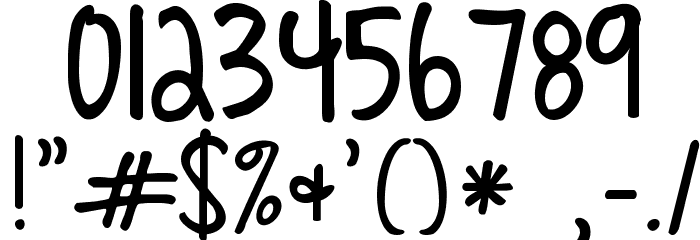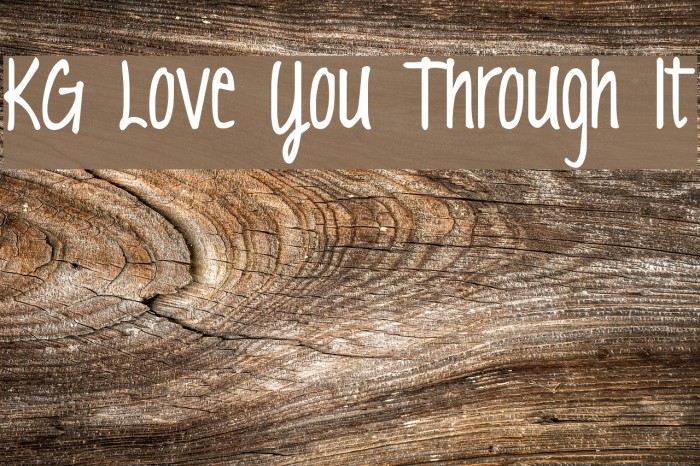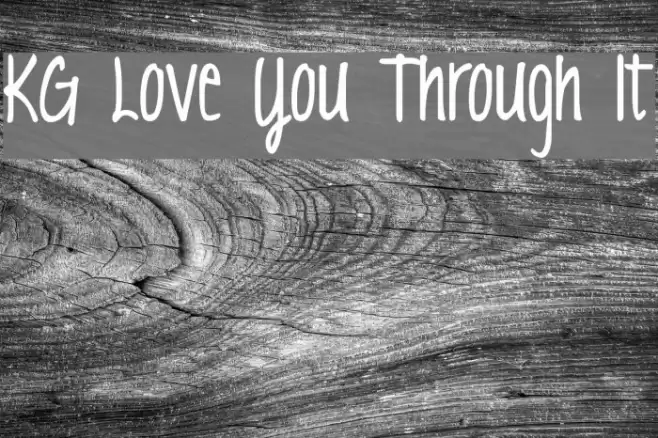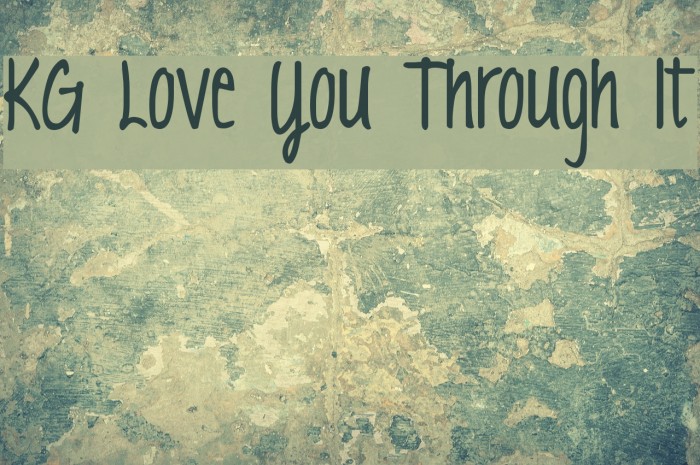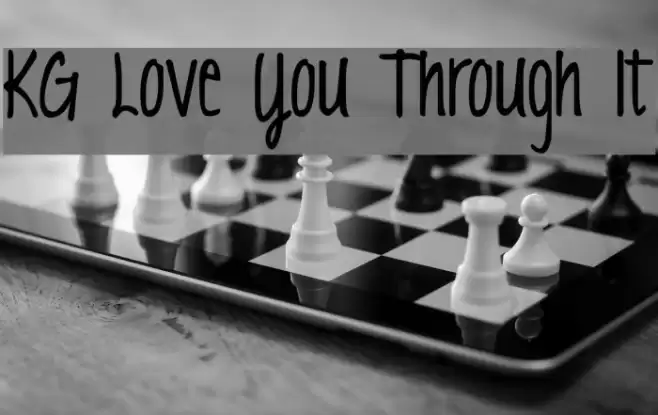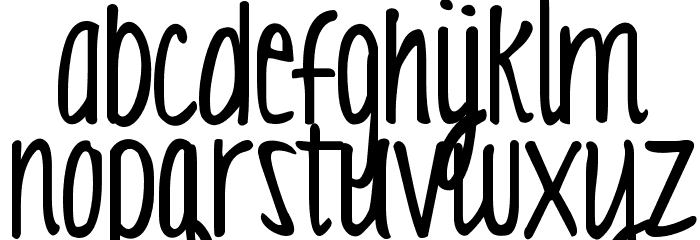
KG Love You Through It Font
KG Love You Through It Description
This playful and whimsical font features a handwritten style with a casual and friendly appearance. The letters are slightly irregular, giving it a personal touch that mimics natural handwriting. The strokes are smooth and rounded, with a consistent thickness throughout, creating a harmonious and approachable look. The uppercase and lowercase letters are well-balanced, and the numerals and special characters maintain the same playful aesthetic. This font is perfect for projects that require a touch of warmth and personality.
| Overall Style | Casual |
| Use Case | Headlines, Informal text, Personal projects |
| Proposed Projects | Ideal for greeting cards, children's books, personal blogs, and informal branding. |